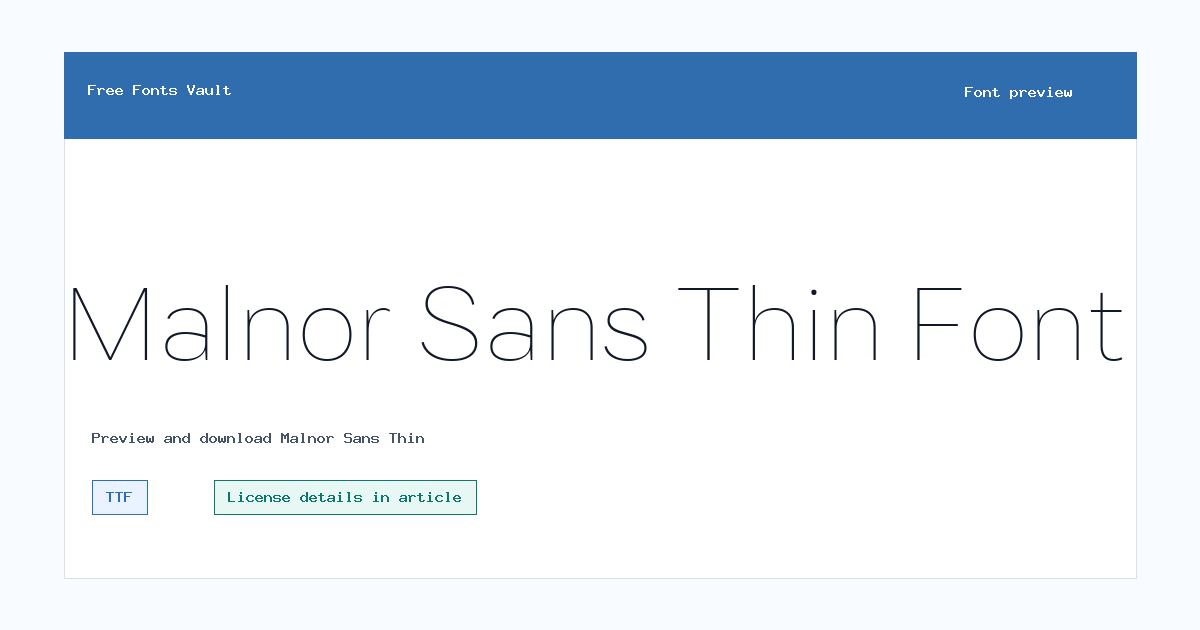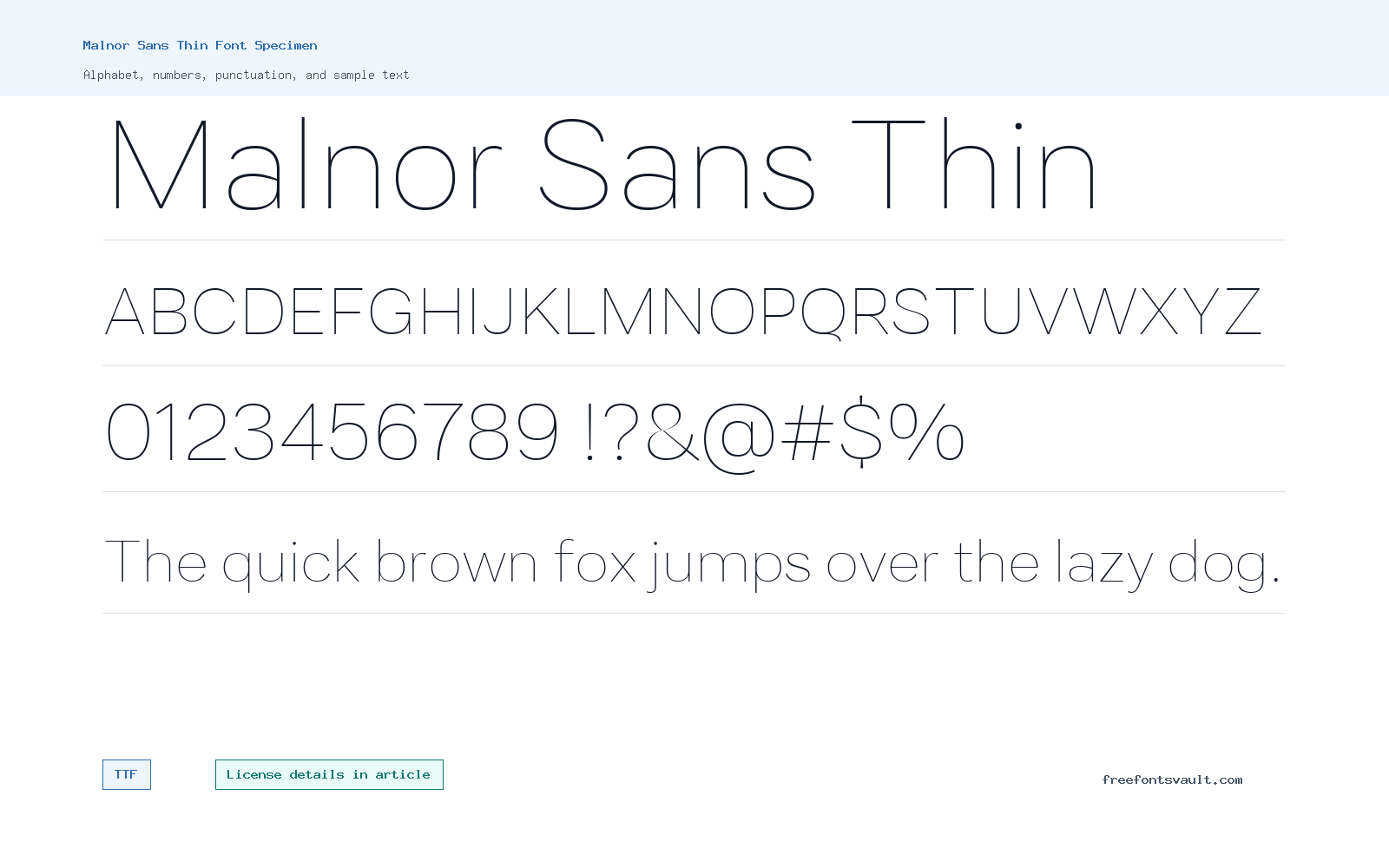
Malnor Sans Thin
- Designer Herlan Nawwi
- Foundry Sikifonts
Malnor Sans Thin is a light TTF sans serif credited to Herlan Nawwi and Sikifonts. It gives text a slim, modern feel and works best where there is enough space for thin strokes to stay readable.
About Malnor Sans Thin
The included file is the Thin style, so the font is naturally delicate. Use it for elegant headings, clean poster text, fashion-style graphics, portfolio titles, UI mockups, social layouts, and short brand explorations. Thin fonts can look polished at large sizes, but they may disappear on small screens, low-contrast colors, or rough print surfaces. Preview the exact text and color combination before you commit.
For a stronger layout, pair Malnor Sans Thin with a more readable sans serif for body copy. Keep this style for the main title, section heading, oversized pull quote, or light accent text. If you need bold emphasis, do not fake it from the thin file; use another compatible font or a heavier family member if you have one. That keeps the design sharper and avoids distorted strokes.
Thin sans serif fonts are sensitive to output quality. They can look excellent in high-resolution web graphics and large print, but weak on small buttons, low-quality screens, or busy photos. Before downloading, test a short heading, a mixed-case phrase, and a number-heavy line so you can see whether the thin weight still holds together.
- Credited to Herlan Nawwi and Sikifonts
- Best at larger sizes with good contrast
- Useful for clean, elegant, and minimal layouts
- Minimal headings and oversized title text
- Portfolio, fashion, beauty, and editorial mockups
- Light UI concepts and social media graphics
- Personal design drafts that need a refined sans serif tone
Malnor Sans Thin is credited to Herlan Nawwi, with Sikifonts named as the foundry. The file copyright also points to Sikifonts.
Use high contrast when testing this font. Thin strokes need room, so increase the size, avoid busy backgrounds, and check mobile readability. If the text feels weak, make the layout simpler or choose a heavier companion font for supporting information. Keep backgrounds calm and avoid very light gray text unless the design is purely decorative.
Who designed Malnor Sans Thin?
The font is credited to Herlan Nawwi, with Sikifonts named as the foundry.
Is Malnor Sans Thin good for body text?
It is usually better for headings and accents. Thin strokes can be hard to read in long paragraphs.
How should I preview a thin font?
Test it at the final size, use strong contrast, and check both desktop and mobile readability before using it in a finished layout.